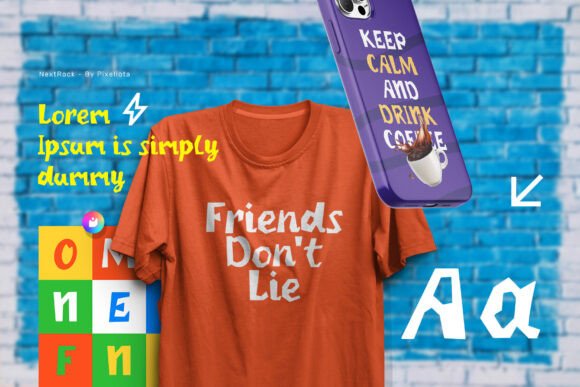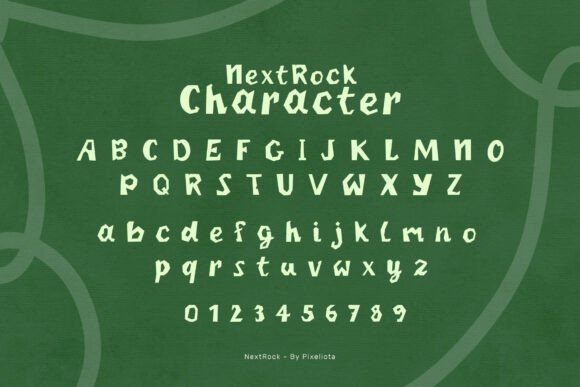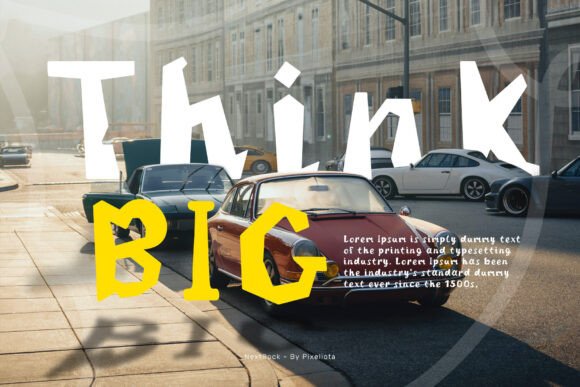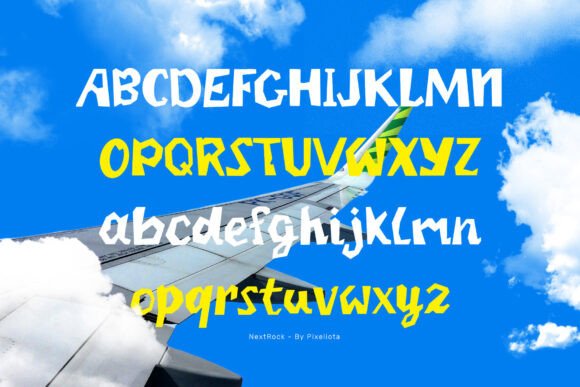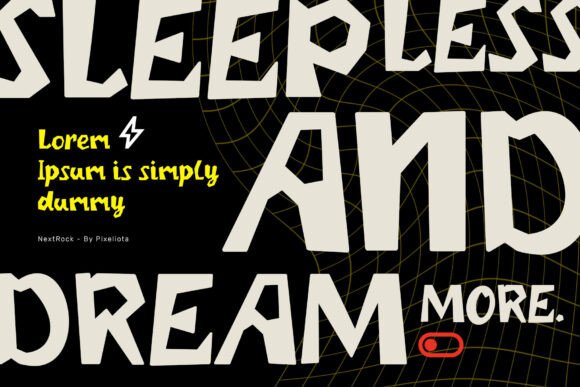
Introduction to Next Rock Font Font
Next Rock is a bold, edgy display font that brings a unique, handcrafted feel to any project.
Inspired by rugged textures and organic shapes, NextRock stands out with its sharp edges and playful curves, making it perfect for titles, logos, posters, and any creative display use .